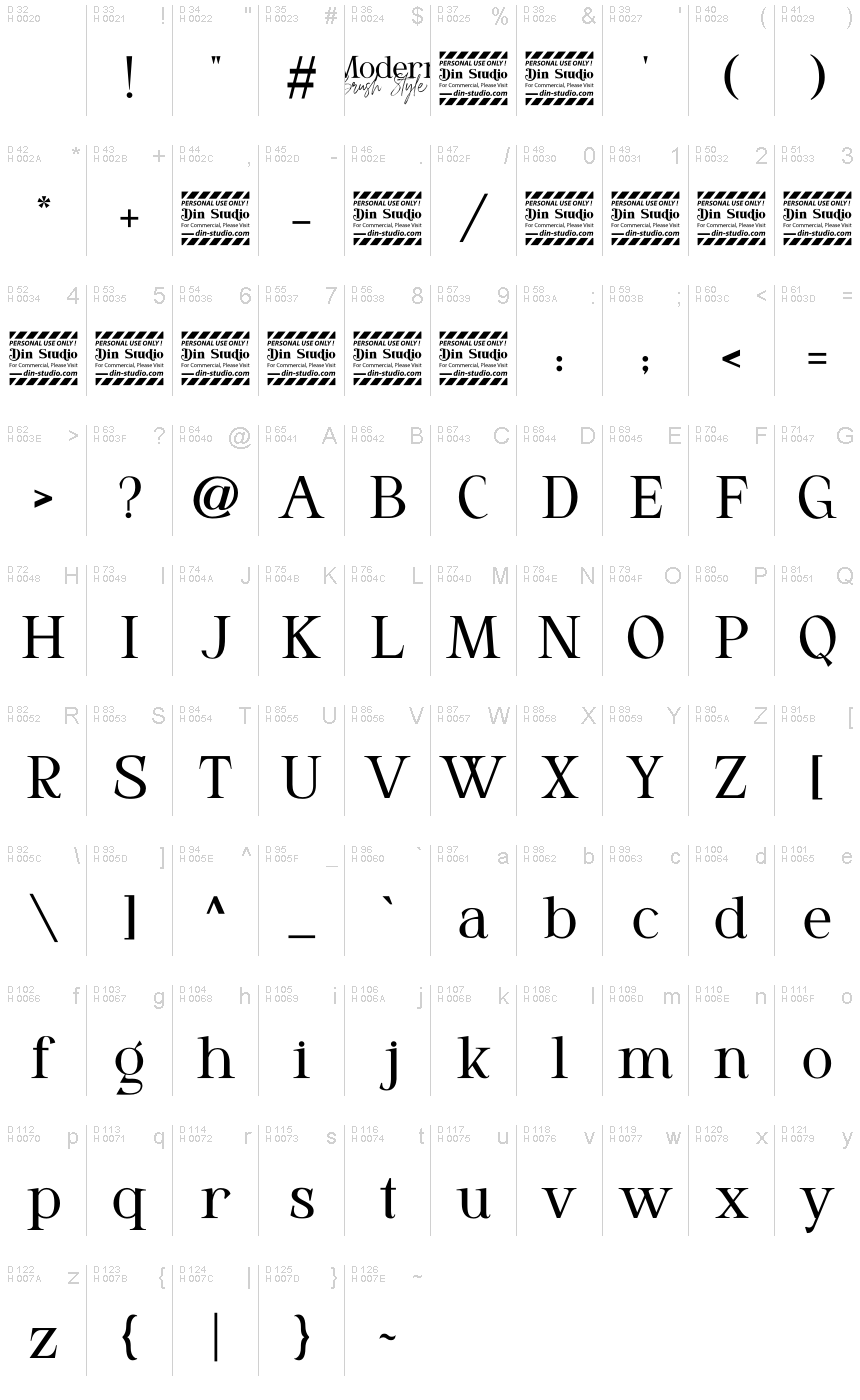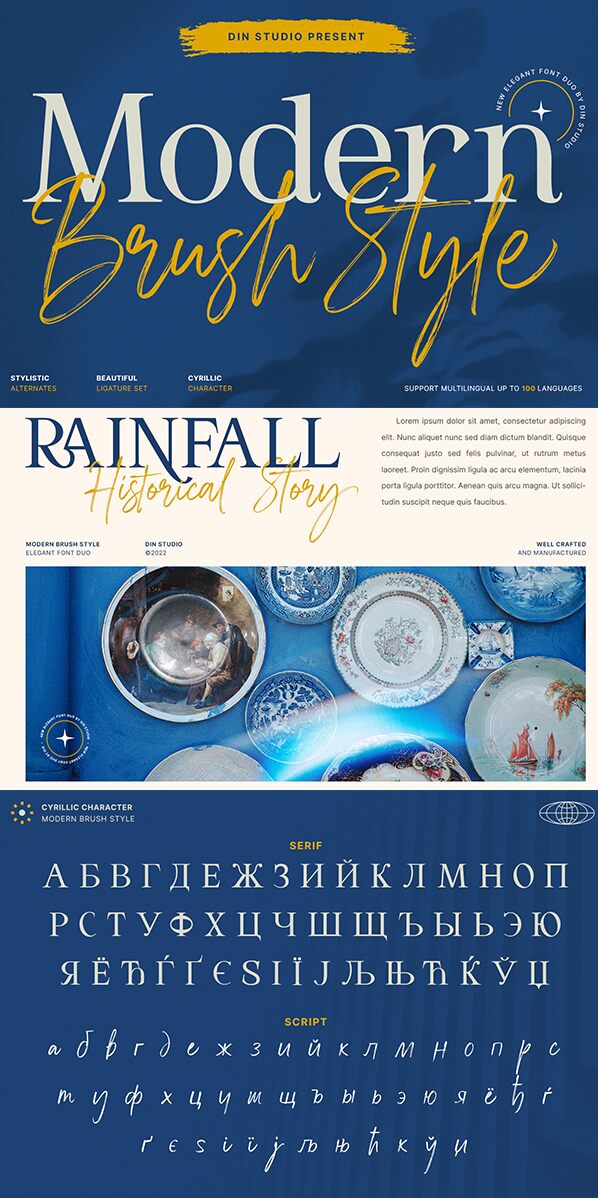
Modern Brush Style Serif Person
Modern Brush Style Serif from Din Studio offers a refreshing twist on traditional typography. This serif font melds the timeless elegance of serif letterforms with the spontaneous energy of brush strokes, creating a visually appealing juxtaposition that's both classic and contemporary. Its aesthetic appeal lies in the organic, handcrafted feel paired with structured serifs, making it an excellent choice for branding, editorial design, and expressive print media.
The distinct flair of Modern Brush Style Serif lies in its versatility. It can add personality to sophisticated layouts or provide a grounded yet artistic touch to more casual designs. With its stylish appearance and artistic undertones, this font invites designers to explore its potential across various creative projects—from book covers to boutique packaging—wherever a touch of uniqueness is desired.